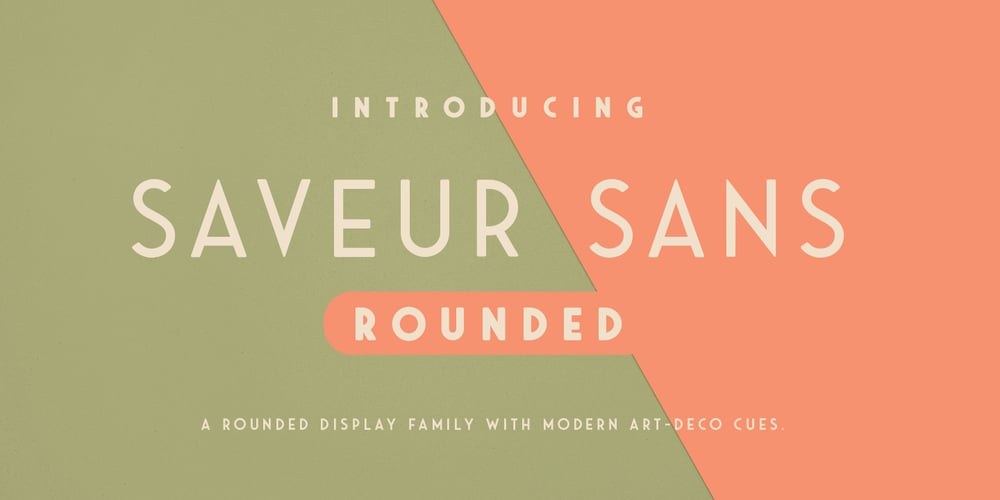
Saveur Sans Round Font Family was designed by Andrew Footit and published by Arkitype. Saveur Sans Round contains 4 styles and family package options. Saveur Sans Round is the softer, friendlier cousin of Saveur Sans, a font family inspired by art deco and French cafes. This display family has clean, simple letterforms that feel modern but at the same time have a retro, art-deco styling. This family can add a sophistication to any layout whether it be print or online. Saveur Sans Round is a great selection for headlines, logotypes and branding. it is an all-caps display family with some neat alternatives including an alternative O and E that instantly give your copy that retro-deco look. The promos have been inspired by French food and design. This family is perfect for use in packaging and branding of food products as well as menus and restaurant or cafe branding.